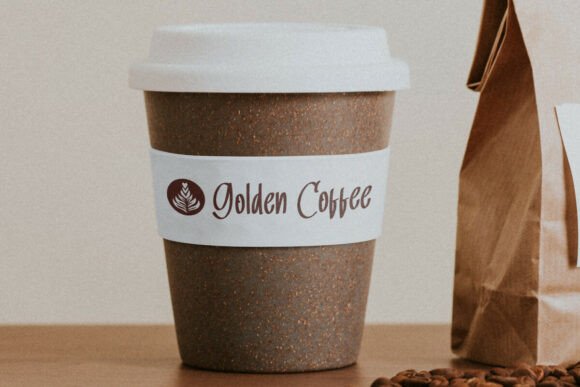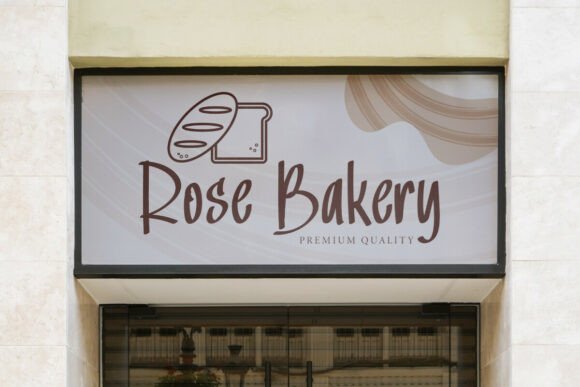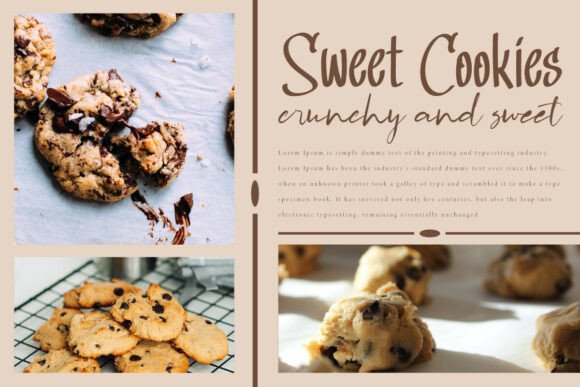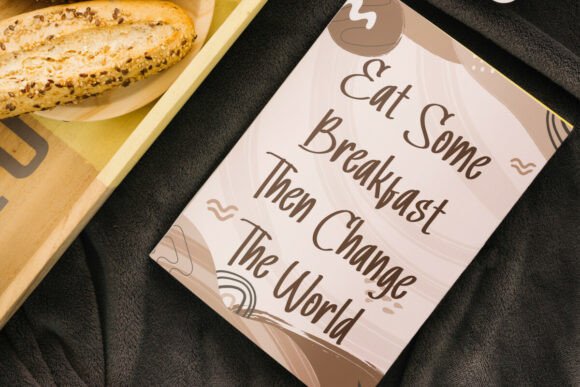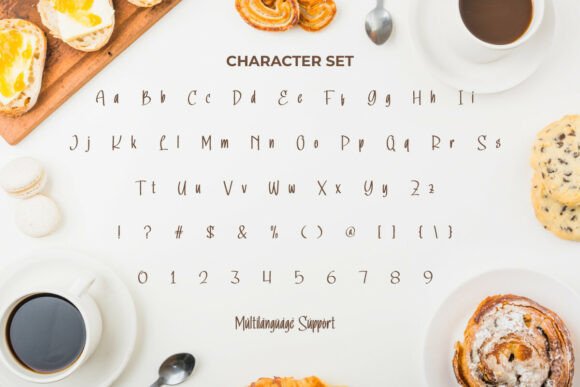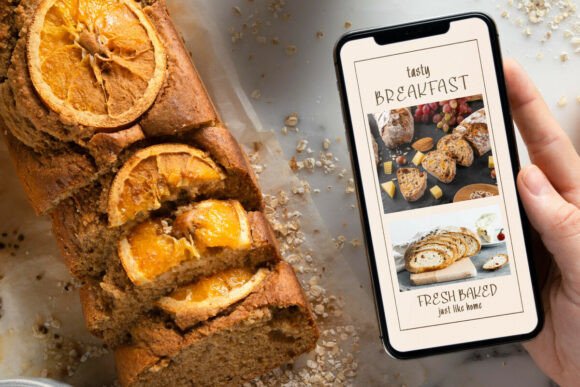
Start Your Day Off Right with a Deliciously Handwritten Typeface
Do you remember the feeling of excitement you got as a kid when your mom or dad would take you to your favorite breakfast spot? The anticipation of what delicious treat you would get to start your day off right? As a designer, you can recreate that same sense of excitement and warmth in your projects with the Breakfast Glory Display Font.
This charming hand-drawn display font is perfect for cafe and bakery branding, food packaging, menu design, and creative social media posts. Its unique, organic feel and thick, bold strokes make it an ideal asset for conveying sincerity, cheerfulness, and a genuine, handmade appeal. The Breakfast Glory Font is PUA-encoded, allowing effortless access to all glyphs, swashes, and alternate characters.
Breakfast Glory Font Key Features
- Font Family: Breakfast Glory Font
- Character Set: Supports Latin characters, including uppercase and lowercase letters, numbers, and punctuation
- Unique Characteristics: Distinctive, cursive-style font with a warm and inviting feel, suitable for headings and titles
Breakfast Glory Font Review
I recently had the chance to work with the Breakfast Glory font, and I must say it’s a unique and quirky addition to any design project. ✨ One of the things that stands out about this font is its versatility – it works well for both digital and print applications, and its playful feel makes it perfect for creating a lighthearted atmosphere.
Another advantage of Breakfast Glory is its readability. The font is clear and easy to understand, even at smaller sizes, making it an excellent choice for body text or captions. ✨ Additionally, the font’s bold weight options add a nice touch of sophistication, allowing you to create a professional-looking design with ease.
- ⚠️ Limited language support – Breakfast Glory is primarily designed for English-speaking audiences, which may limit its use for multilingual projects.
- ⚠️ Some users may find the font’s quirks and irregularities distracting, particularly in larger blocks of text.
Overall, I think Breakfast Glory is a great addition to any designer’s toolkit. While it may have some limitations, its unique personality and versatility make it an excellent choice for a wide range of projects.
For optimal results, use the Breakfast Glory Font in designs that require a playful and whimsical feel, such as breakfast-themed menus, food blogs, or children’s book illustrations. You can also use it to add a touch of elegance to wedding invitations, event graphics, or branding materials.